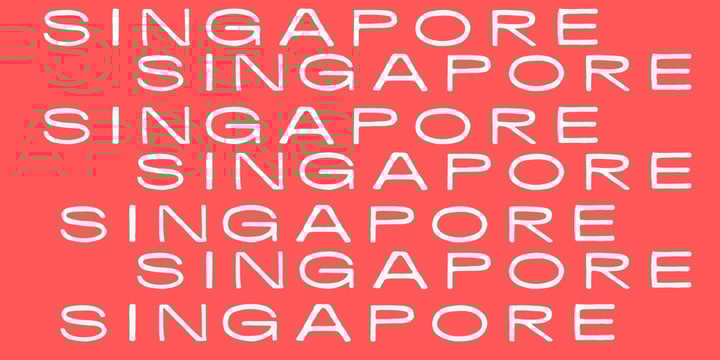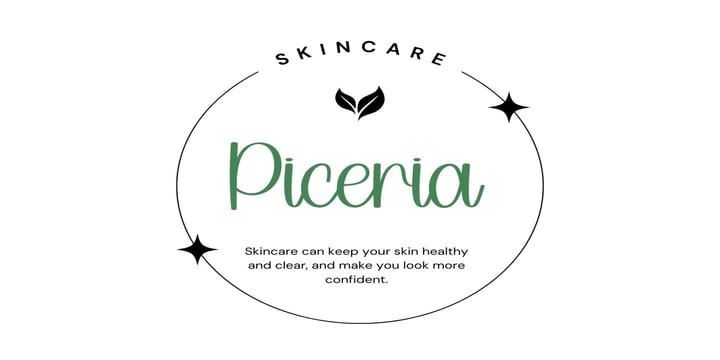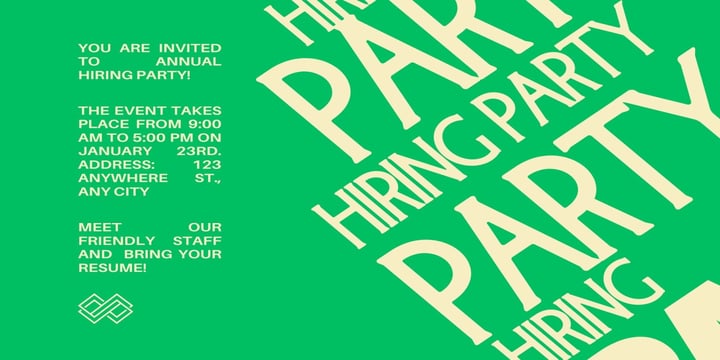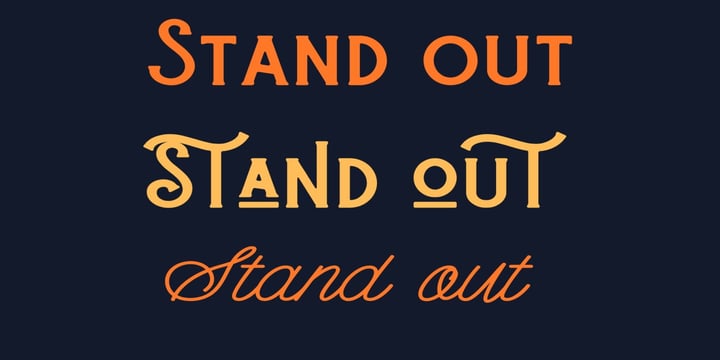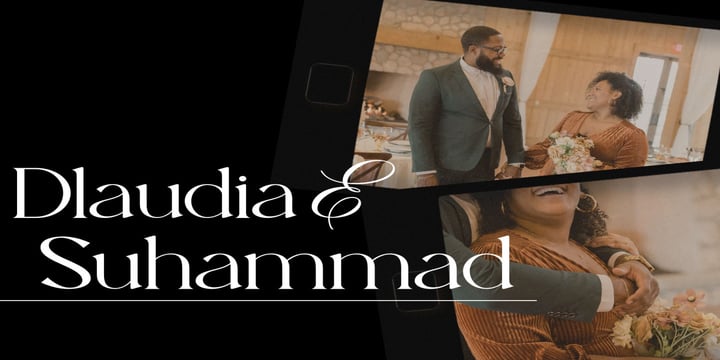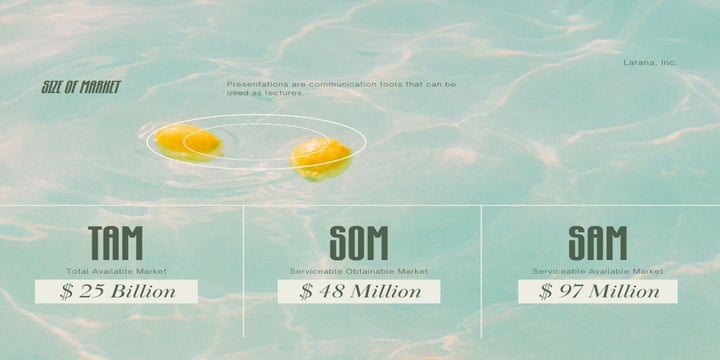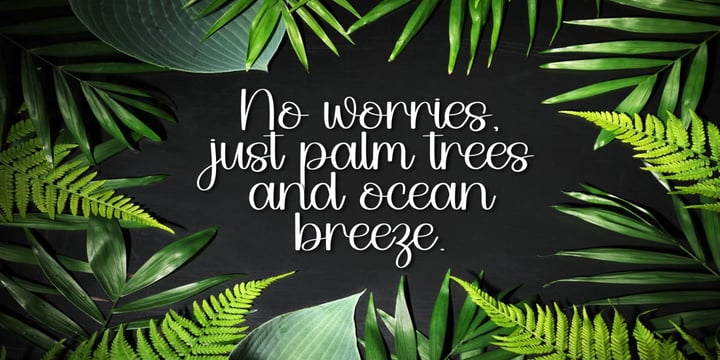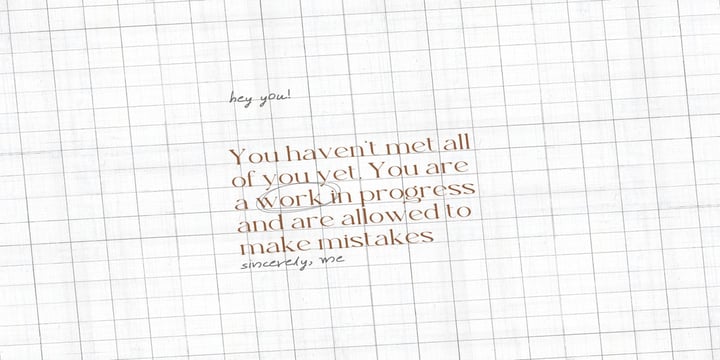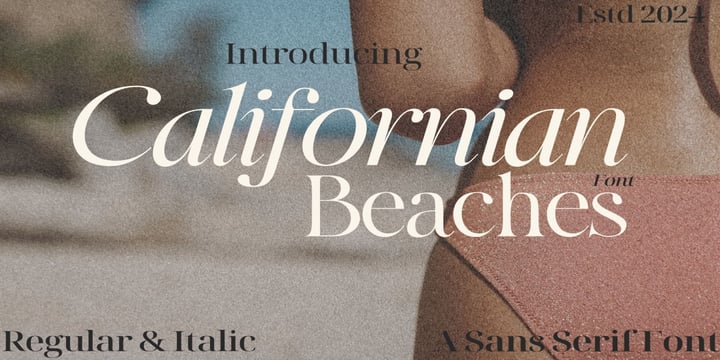
Spring Bundle
This big handwritten font bundle is perfect for all of your cricut projects, stickers, procreate designs, retro designs, vinyl, svg designs, shirts and more!
This bundle includes a handpicked selection of fonts - a little bit of everything + some new fonts!